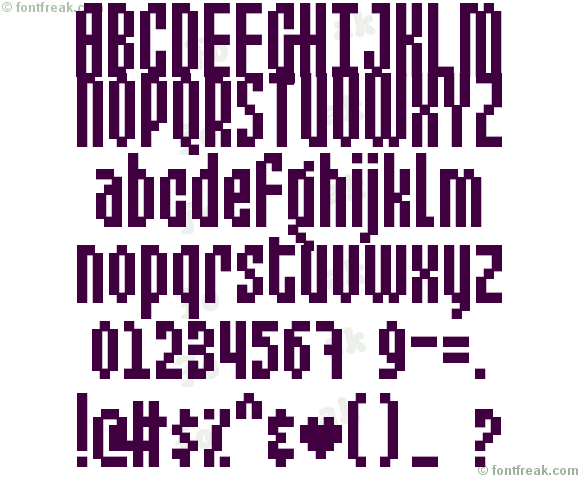
Mixelate III
About Mixelate
Introducing the Mixelate font by Font-a-licious Fonts, a distinctive display typeface designed for creative projects that demand attention. This font stands out with its unique pixelated style, reminiscent of digital art and retro video games. The Mixelate font features bold stroke weights and sharp edges, creating an eye-catching contrast that adds character and intrigue to any design. Its spacing is carefully crafted to maintain readability while still embracing its playful, block-like aesthetic.
The Mixelate font is an excellent choice for a variety of specific use cases. It is perfect for movie posters where a vintage or tech-inspired vibe is desired, as well as for video game graphics that aim to evoke nostalgia. Additionally, it can be used effectively in promotional materials for tech startups looking to capture a modern audience. Restaurant menus that want to incorporate a fun and quirky element could also benefit from this font, making dishes stand out in a memorable way. Graphic designers, small business owners, and content creators will find Mixelate to be a versatile addition to their font library.
What makes the Mixelate font truly unique is its ability to merge nostalgia with modern design principles. The pixelated appearance not only captures the essence of retro aesthetics but also appeals to contemporary sensibilities, making it suitable for diverse creative projects. With the Mixelate font free download available, designers can easily incorporate this striking typeface into their work, enhancing their projects with a touch of playful charm. Whether your goal is to evoke a sense of fun or to capture the essence of digital culture, Mixelate is a standout choice that delivers on all fronts.